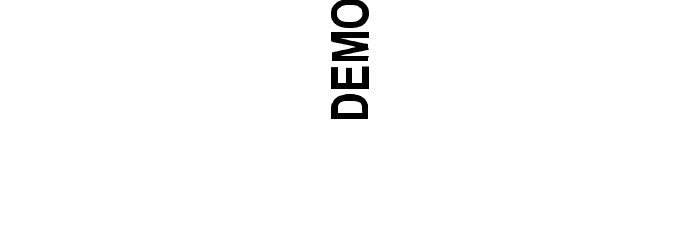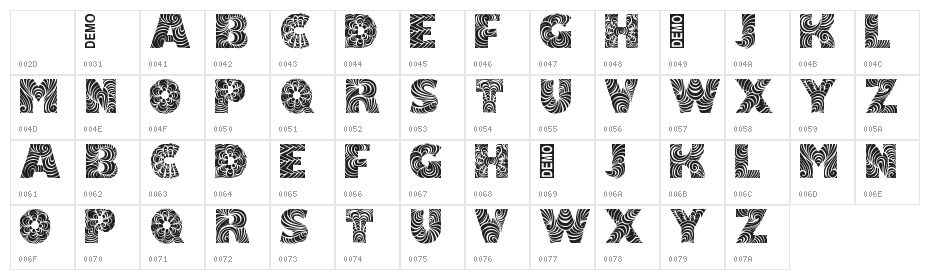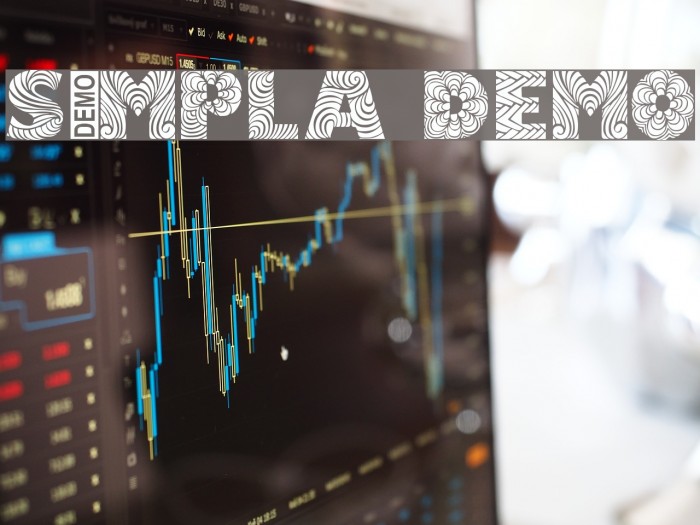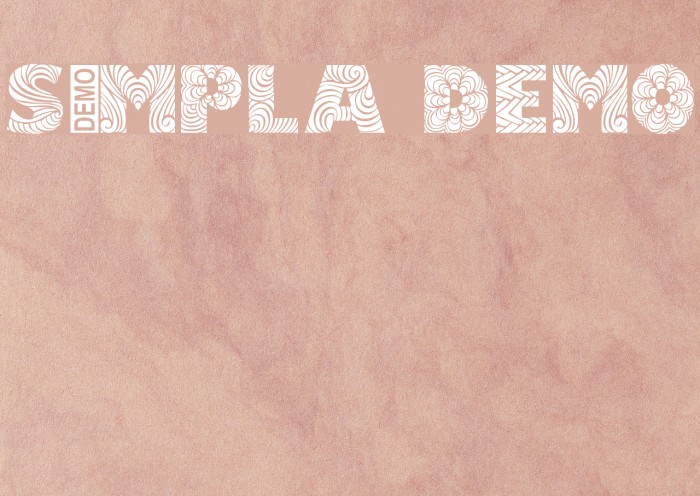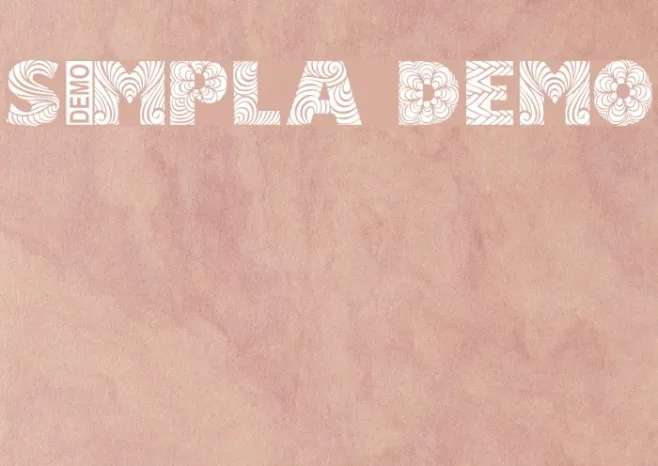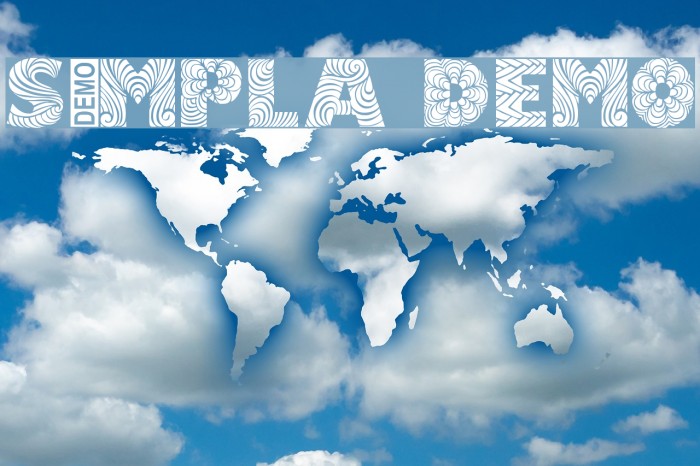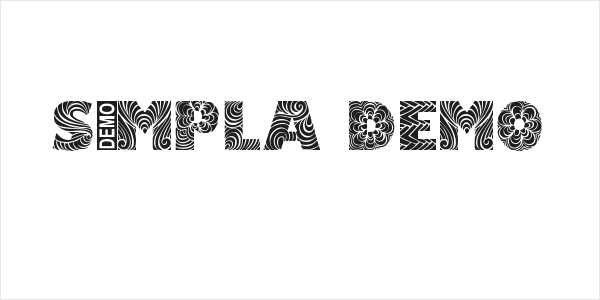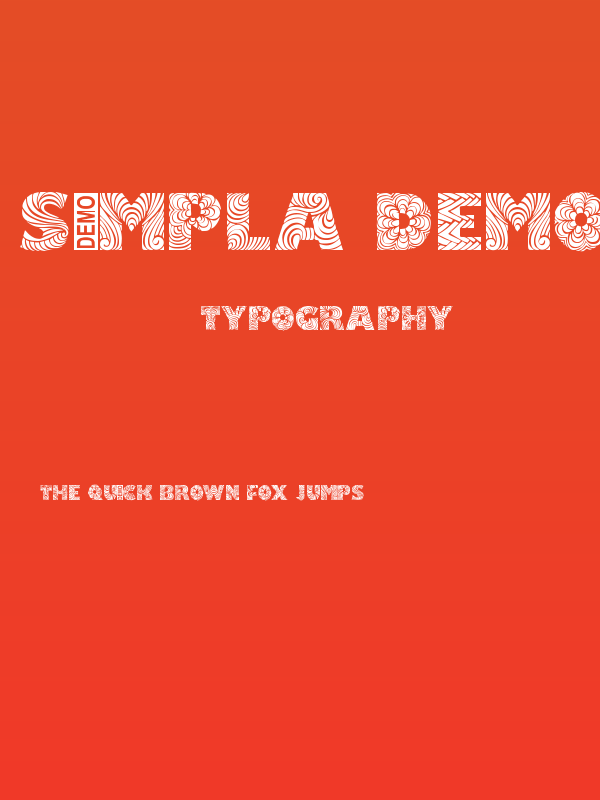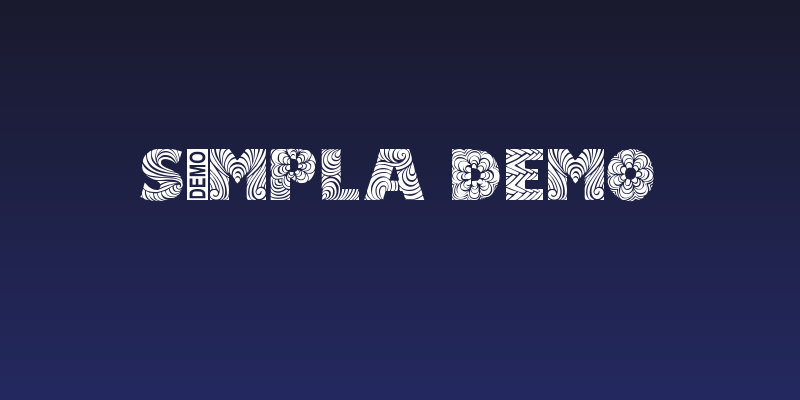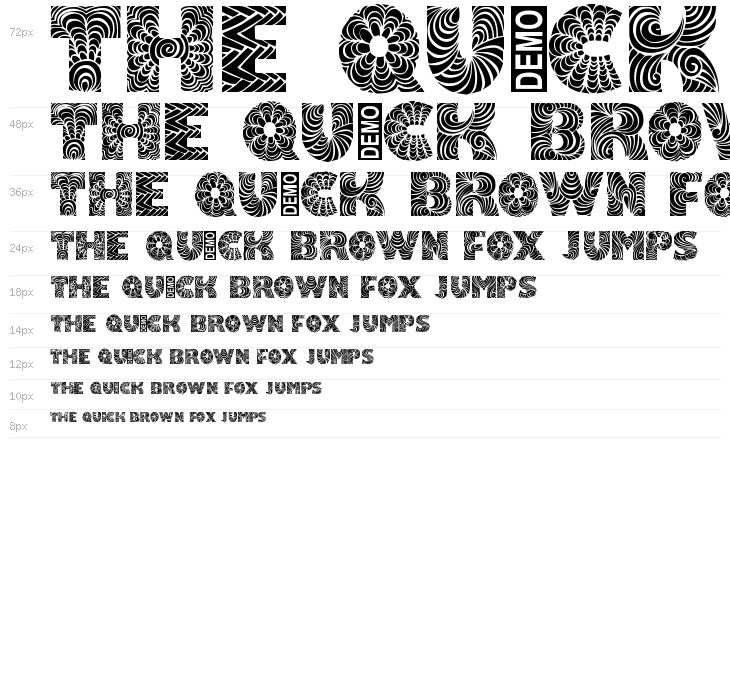
Simpla Demo Font
Simpla Demo Description
This font features a bold and decorative style with intricate patterns filling each letter. The design includes swirling lines and floral motifs, creating a visually striking appearance. The uppercase letters are uniformly bold, with each character showcasing unique internal designs that maintain consistency across the alphabet. The font is highly decorative, making it ideal for projects that require a strong visual impact. Its artistic flair and detailed patterns make it unsuitable for body text but perfect for eye-catching headlines or creative branding projects.
| Proposed Projects | Ideal for creative branding, eye-catching headlines, posters, and artistic projects requiring a strong visual impact. |